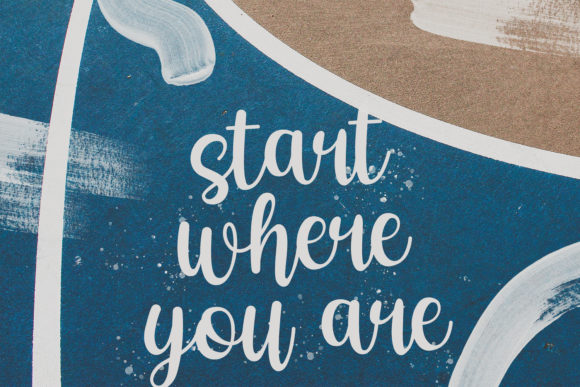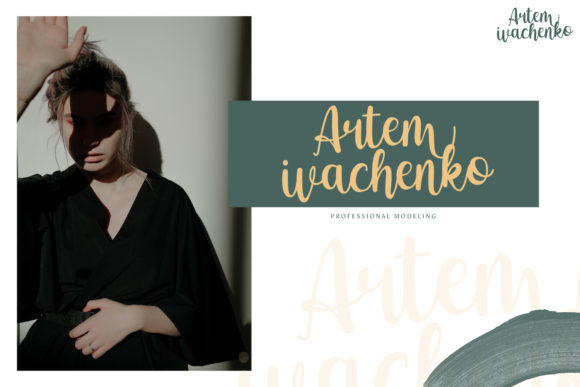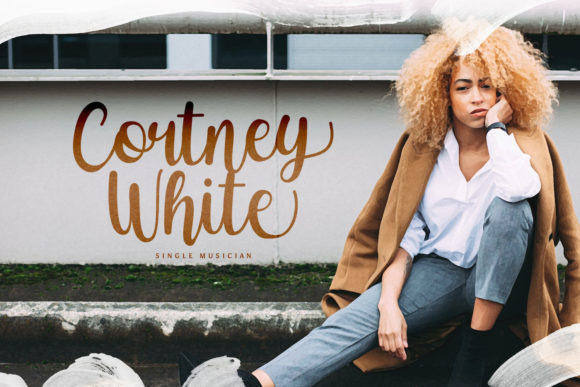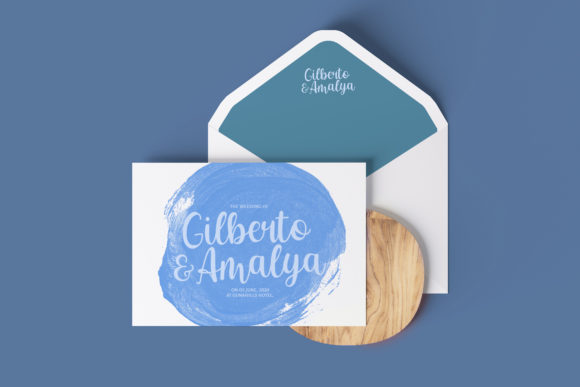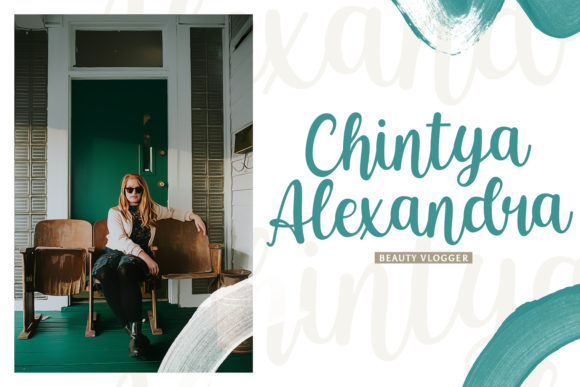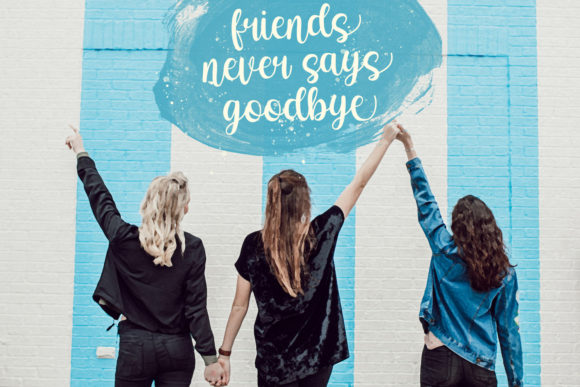
The Perfect Blend of Bold and Elegant: Unleashing the Power of Betharia Classy Font
Have you ever stared at a blank page, waiting for inspiration to strike? That’s exactly what happened to me the other day, when I was brainstorming ideas for a new branding project. I wanted something that would stand out, yet still convey a sense of sophistication and class. And then, it hit me – the perfect font to elevate my design to the next level: Betharia Classy Font.
This stunning script font is a masterful blend of bold and delicate elements, making it the perfect choice for designers looking to add a touch of elegance to their projects. Whether you’re working on a high-end branding campaign, a wedding design, or a simple invitation, Betharia Classy Font is sure to impress. Its versatility and sophistication make it a valuable addition to any designer’s toolkit.
Betharia Classy Font Key Features
- Font Family: Betharia Classy Font is a unique, high-quality font family designed to provide a sophisticated and elegant look to your digital content.
- Character Set: Supports a wide range of languages, including Latin, Cyrillic, and Greek alphabets, making it an ideal choice for multilingual designs.
- Resolution and Size: Offers high-resolution fonts with scalable sizes, ensuring crisp and clear readability on various devices and screen resolutions.
- Unique Characteristics: Features elegant curves, refined lines, and subtle nuances that give it a distinctive and classy appearance, perfect for luxury brands, high-end publications, and premium websites.
Betharia Classy Font Review
Overall, I think the Betharia Classy Font is a solid choice for those looking for a elegant and sophisticated font. ✨ It’s perfect for use in design projects that require a touch of luxury and refinement. The font’s classical feel is undeniable, and it’s sure to elevate any design that uses it.
- ✨ Elegant and refined aesthetic, perfect for high-end design projects
- ✨ Compatible with a wide range of devices and operating systems
- ✨ Supports a variety of languages, making it a great choice for global design projects
However, I do have some reservations about the font’s limitations. ⚠️ While it’s great for high-end design projects, it may not be the best choice for more casual or playful designs. Additionally, the font’s classical feel may make it seem a bit dated or overused in certain contexts.
- ⚠️ May not be suitable for more casual or playful design projects
- ⚠️ Classical feel may seem dated or overused in certain contexts
- ⚠️ Limited flexibility in terms of font sizes and styles
Overall, I’d give the Betharia Classy Font 3.5 out of 5 stars. It’s a solid choice for those looking for a elegant and sophisticated font, but it may not be the best fit for every design project.
Tips for Getting the Most Out of Betharia Classy Font
For the best results, use Betharia Classy Font in conjunction with elegant and sophisticated design elements.
– Pair the font with high-quality images or graphics to create a luxurious look.
– Use the font in headings and subheadings to add visual hierarchy to your design.
– Experiment with different font sizes and colors to create a unique and eye-catching effect.
Betharia Classy Font is perfect for:
– Luxury brand logos and branding materials.
– High-end wedding invitations and stationery.
– Elegant business cards and marketing materials.
– Sophisticated digital presentations and reports.